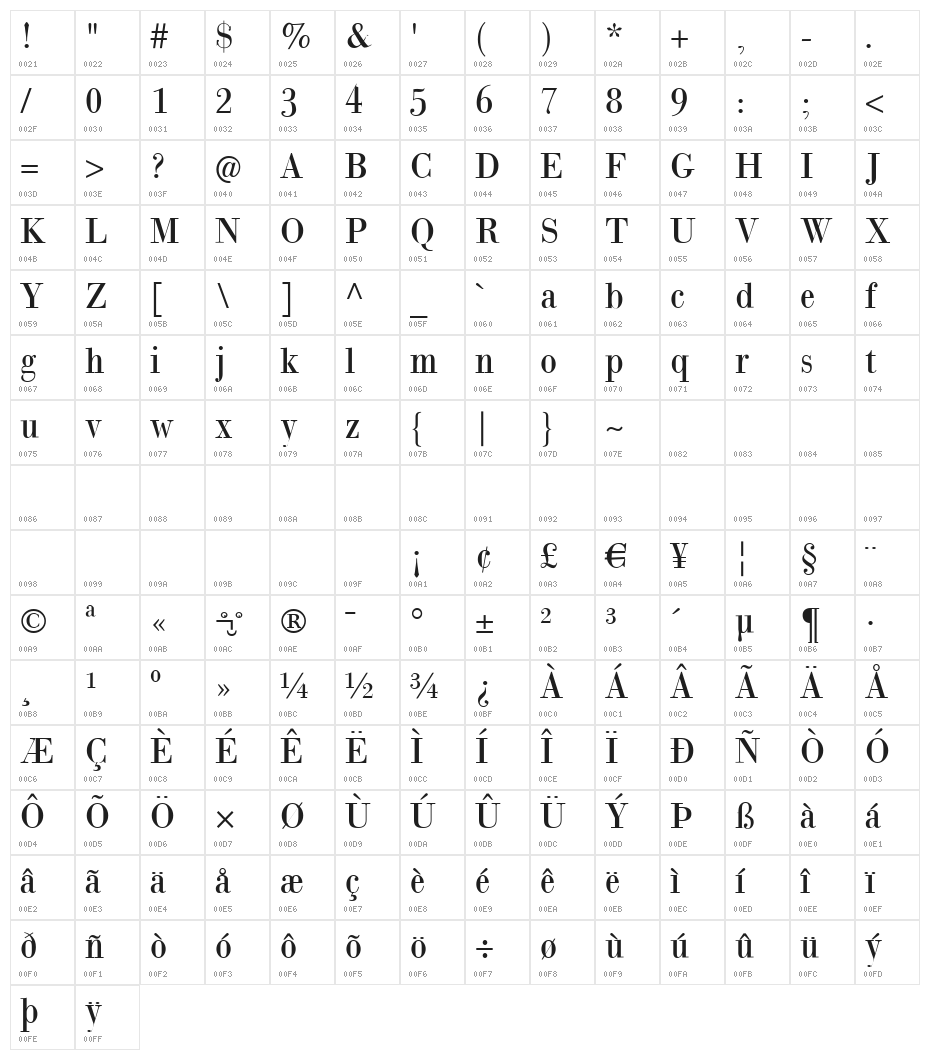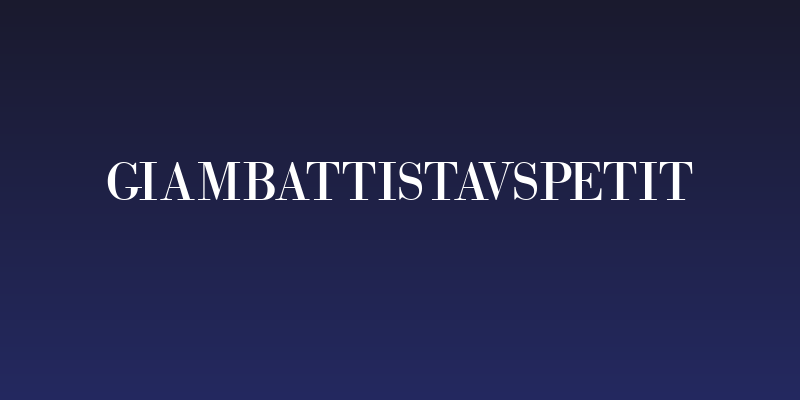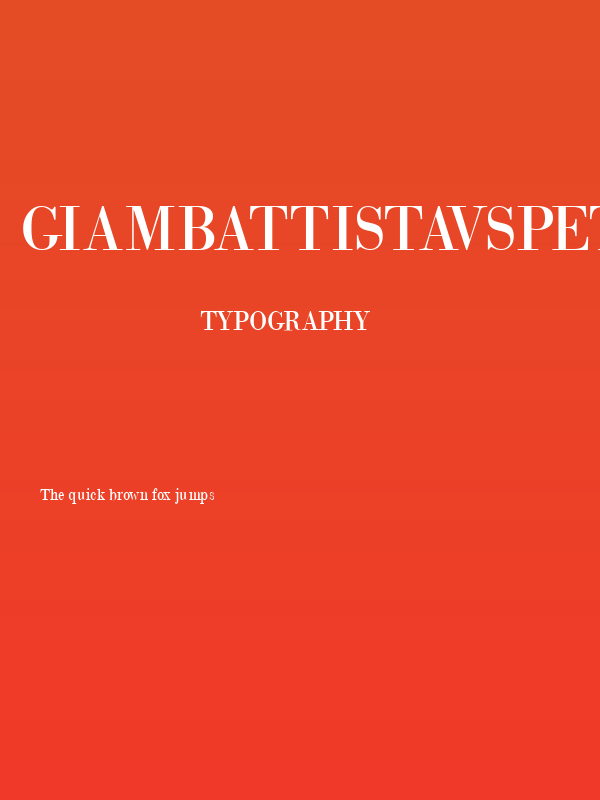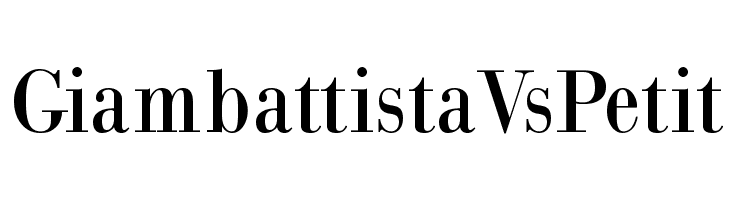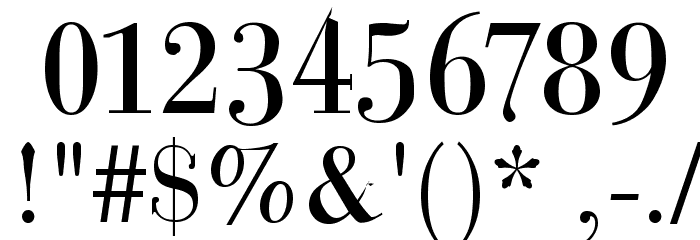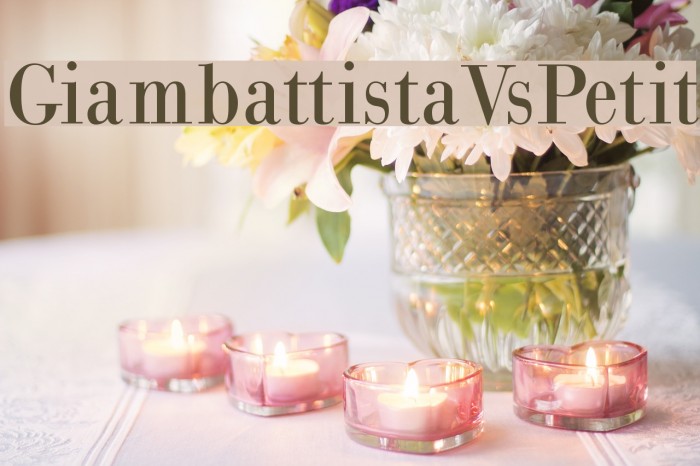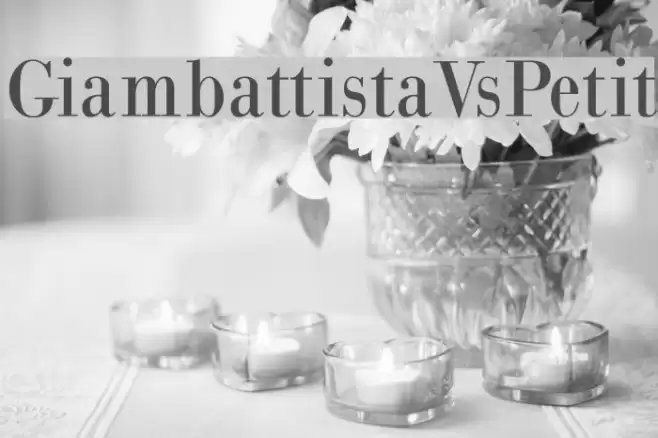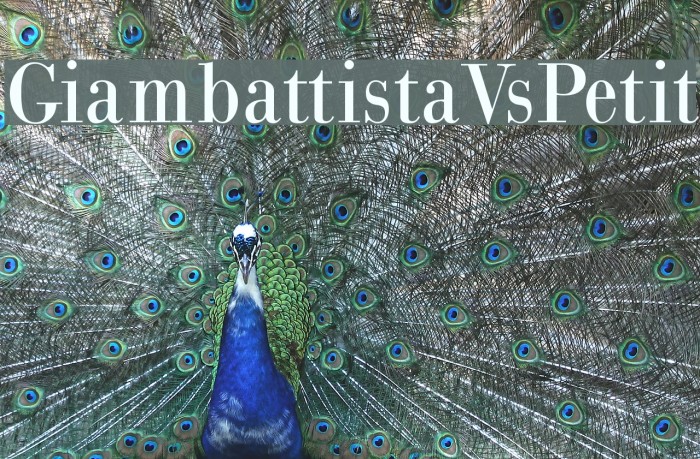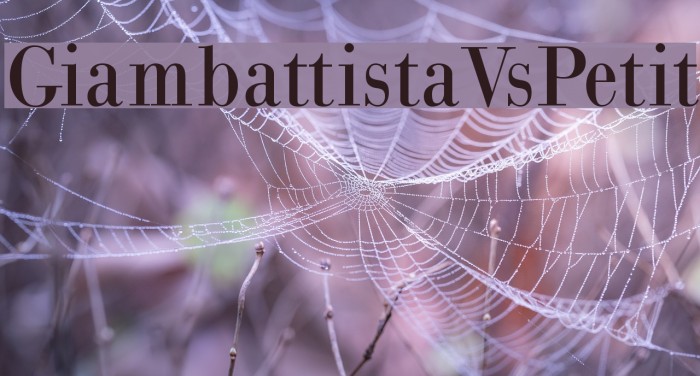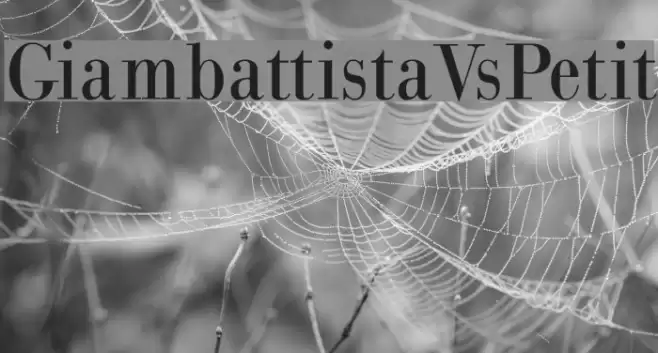
GiambattistaVsPetit Font
GiambattistaVsPetit Description
This font exhibits a classic serif style with high contrast between thick and thin strokes, giving it an elegant and sophisticated appearance. The uppercase letters are bold and commanding, while the lowercase letters maintain a refined and balanced look. The numerals are clear and distinct, ensuring readability. Special characters are well-integrated, maintaining the overall aesthetic. The serifs are sharp and pronounced, contributing to the font's traditional and formal feel. This typeface is suitable for projects that require a touch of elegance and formality.
| Overall Style | Classic |
| Use Case | Headlines, Body text, Logos |
| Proposed Projects | Ideal for use in editorial design, book covers, formal invitations, and branding materials that require a classic and refined appearance. |